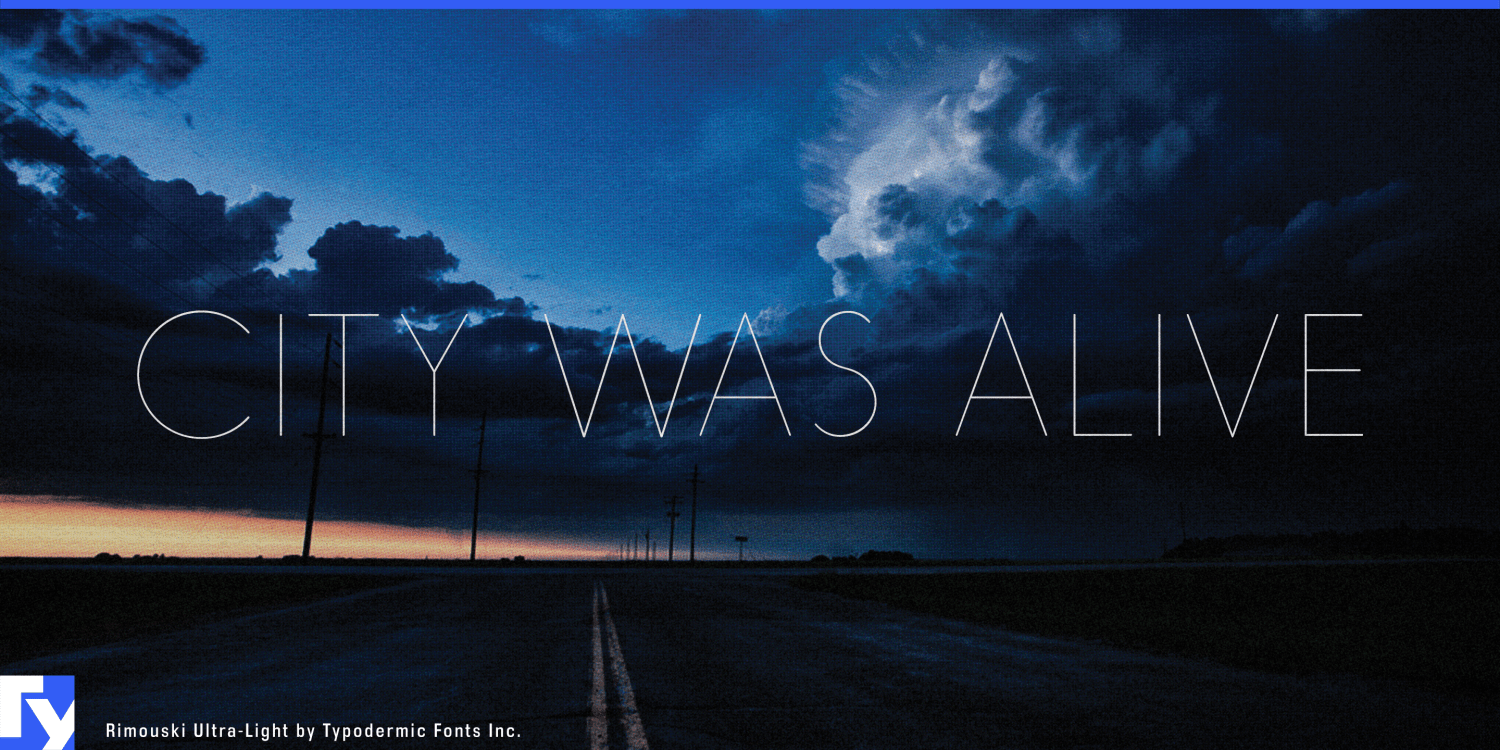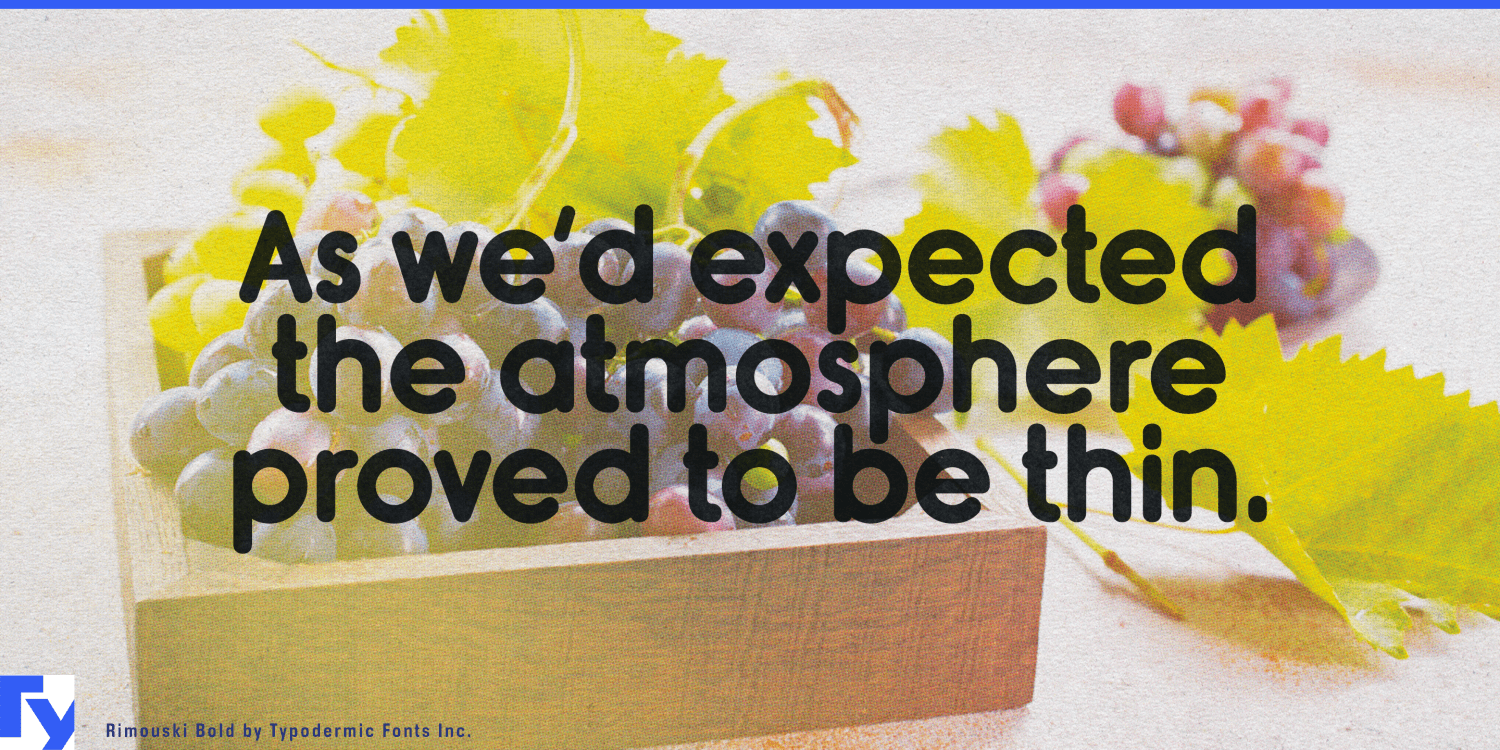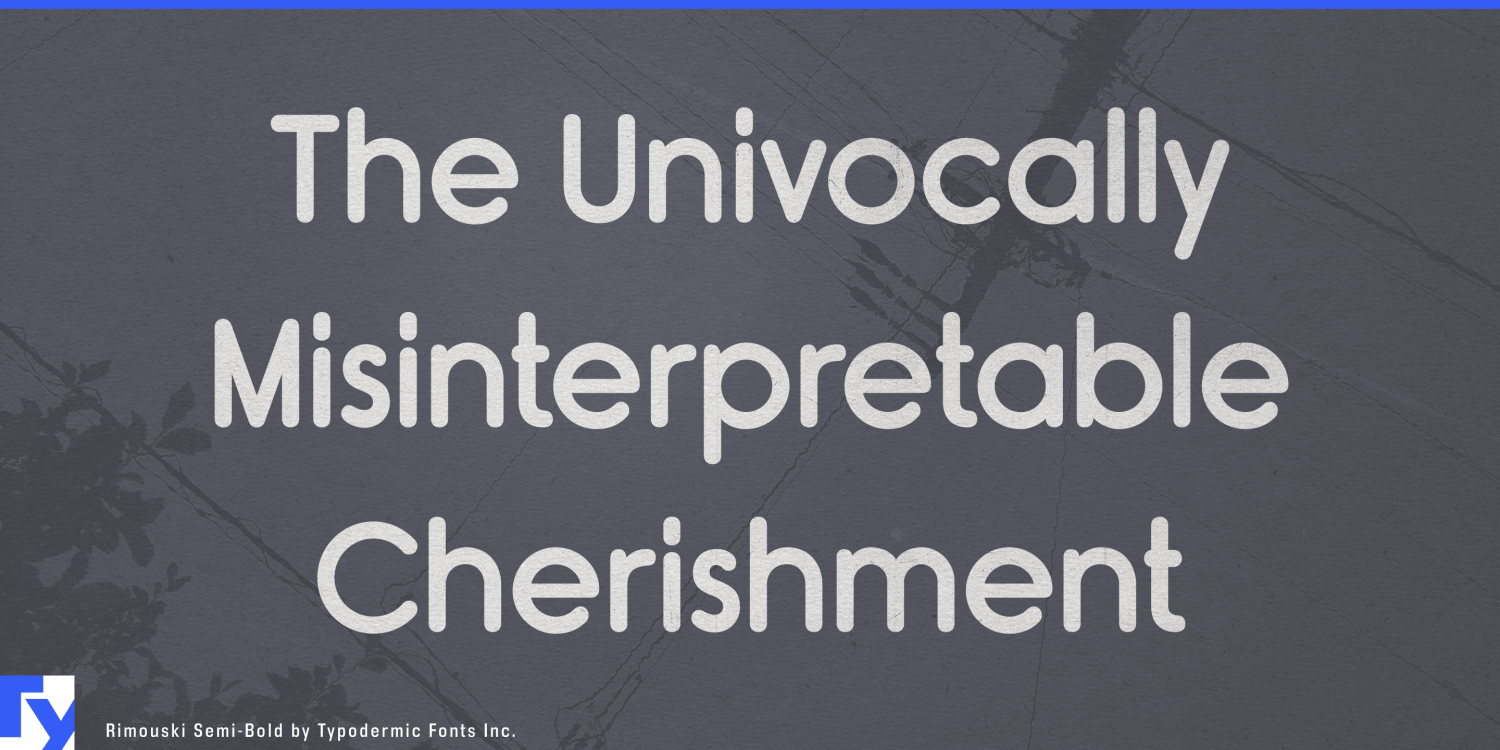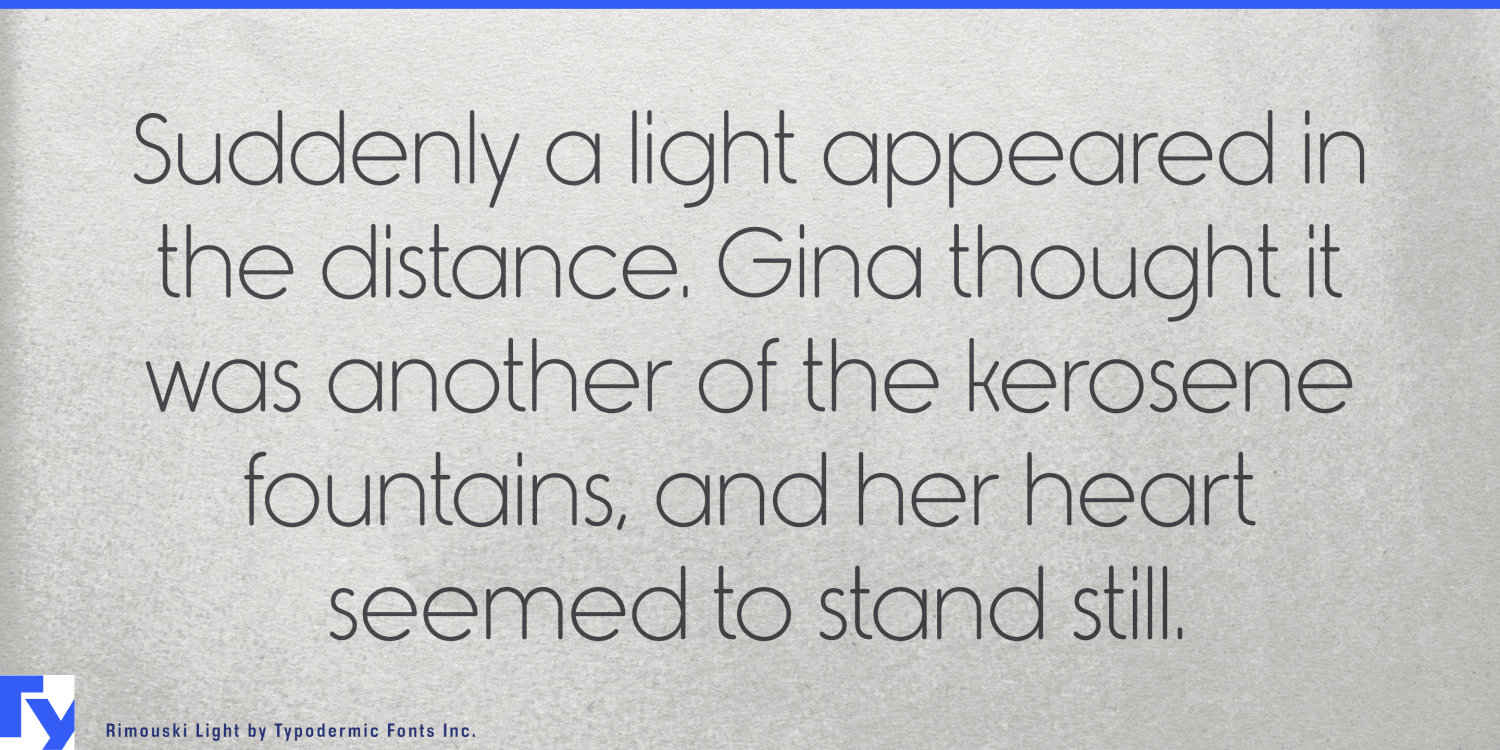
About Rimouski
Step into the world of Rimouski, a rounded geometric typeface that redefines the boundaries between elegance and whimsy. At first glance, its meticulously crafted letterforms exude a sense of refined sophistication, but look closer, and you’ll discover…